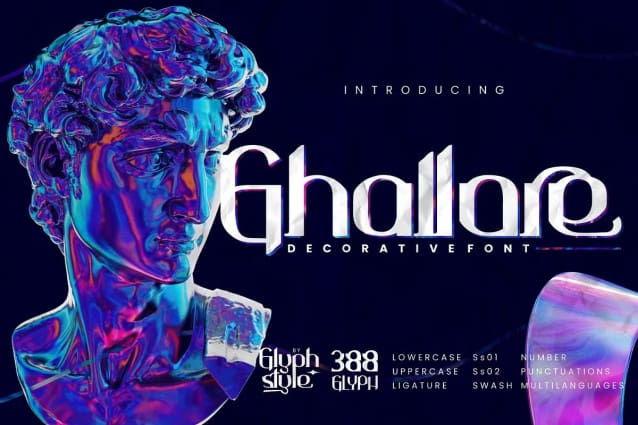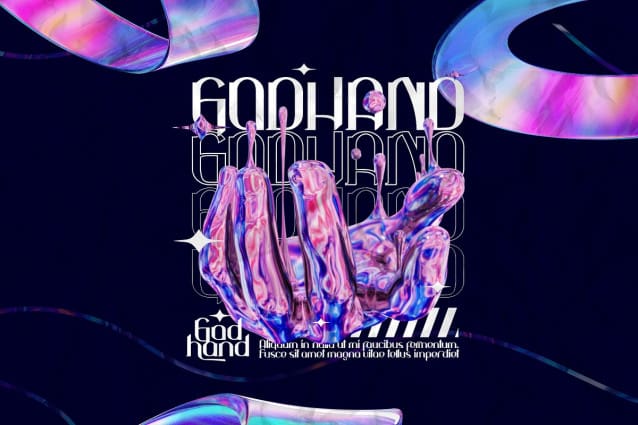
Ghallore Display Font
Ghallore Display Font is a decorative display font, with a modern style. The firm shape combined with the swash and stylistic curves makes this font look attractive
Ghallore is perfect for branding projects, logos, wedding designs, social media posts, advertisements, product packaging, product designs, labels, photography, watermarks, invitations, stationery, and any project that requires a sense of sans serif decorative font.